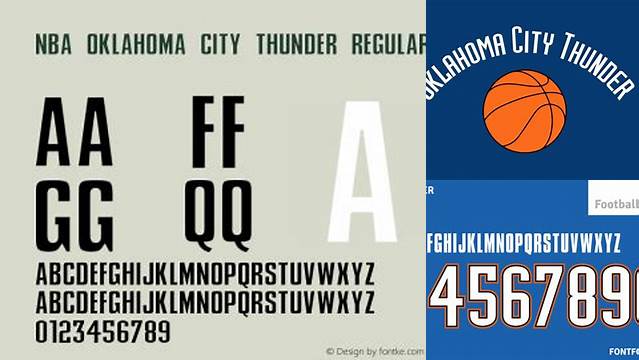
Hey Thunder fans! Are you looking to capture the electric energy of the Oklahoma City Thunder in your designs? Whether you’re creating fan art, social media graphics, or even personal projects, the right font can make all the difference. In this guide, we’ll dive deep into the world of the Oklahoma City Thunder font, exploring where to find it, how to use it, and even some awesome alternatives. So, buckle up and let’s get started!
Oklahoma City Thunder Font: An Overview
The Oklahoma City Thunder's visual identity is more than just their logo; it's also about the typography they use. The font helps convey the team's spirit, energy, and professionalism. It's crucial for branding consistency, making sure that everything from jerseys to promotional materials has a unified look and feel. Understanding the importance of this font is the first step in effectively using it for your projects. We'll discuss why choosing the right font matters and how it contributes to the overall brand image of the Thunder.
Understanding the Oklahoma City Thunder Brand Identity
Before we jump into downloading fonts, let's chat about the Oklahoma City Thunder's brand identity. Understanding this will help you appreciate why their font choices are so important. The Thunder's brand is all about power, dynamism, and a modern aesthetic. Their logo, colors, and typography work together to communicate this. Think about the vibrant blues and oranges – they’re not just random colors; they evoke a sense of energy and excitement. The font plays a crucial role in this, as it needs to be both readable and reflective of the team's overall vibe. By understanding these elements, you can better appreciate the nuances of the Thunder’s font and how it fits into their larger branding strategy. It's like understanding the story behind your favorite superhero – it makes the logo and the font even cooler!
Official Oklahoma City Thunder Font: What Is It?
So, what exactly is the official font used by the Oklahoma City Thunder? This is a common question among fans and designers alike. The Thunder, like many professional sports teams, often use a custom or modified font to create a unique visual identity. This means that you might not find an exact match readily available for free download. However, understanding the characteristics of the font – its weight, style, and overall feel – will help you find suitable alternatives. The official font usually has a bold, strong appearance, conveying the team's strength and determination. While specific details might be proprietary, we can analyze its features and look for similar fonts that capture the same spirit. Think of it as being a font detective – we're looking for clues to help us find the best options!
Where to Find Free Fonts Similar to the Thunder Font
Okay, let's get to the good stuff – finding free fonts that look like the Oklahoma City Thunder's font! While the exact font might be elusive, there are tons of fantastic alternatives out there. Websites like DaFont, Google Fonts, and Font Squirrel offer a wide variety of free fonts that you can download and use. The key is to look for fonts that have a similar bold and modern style. Think about fonts with a strong sans-serif typeface, as these often match the Thunder’s aesthetic. Don't be afraid to experiment and try out different options until you find one that you love. It's like going on a font treasure hunt – you never know what gems you might discover!
Identifying Key Characteristics of the Thunder Font
To find the perfect match, we need to identify the key characteristics of the Oklahoma City Thunder font. What makes it stand out? Usually, it's a bold, sans-serif font with clean lines and a powerful presence. Think about the spacing between letters, the thickness of the strokes, and the overall shape of the characters. These little details can make a big difference in how a font looks and feels. Is it geometric and modern? Or does it have a more rounded, friendly appearance? By breaking down the font into these elements, you can more effectively search for similar options. It's like learning the ingredients of your favorite dish – once you know what's in it, you can try to recreate it yourself!
Best Sans-Serif Fonts for a Thunder-Like Look
Sans-serif fonts are your best bet for capturing that Oklahoma City Thunder vibe. These fonts are known for their clean, modern lines and lack of serifs (the little decorative strokes at the ends of letters). Some fantastic options to consider include Bebas Neue, Montserrat, and Oswald. Bebas Neue is a popular choice for its tall, condensed letters and strong presence. Montserrat offers a more versatile option, with various weights and styles to choose from. Oswald is another excellent choice, known for its slightly rounded forms and readability. When selecting a font, think about how it will look in different sizes and contexts. A font that looks great in a headline might not be as effective in body text. It's all about finding the right balance. Remember, these suggestions are just the starting point of your own Thunder font adventure!
Free Alternatives to the Official Thunder Font
Let's dive into some specific free alternatives that you can use in your projects. Remember, the goal is to capture the essence of the Thunder font, even if we can't get an exact match. Consider fonts like Roboto, Open Sans, and Lato. Roboto is a hugely popular font from Google Fonts, known for its clean and modern appearance. Open Sans is another great option, prized for its readability and versatility. Lato offers a slightly warmer and friendlier feel, while still maintaining a professional look. Each of these fonts has its own unique character, so play around with them and see which one resonates with you the most. Try them out in different sizes, colors, and contexts to see how they perform. It's like trying on different jerseys to see which one fits just right!
Using Font Identification Tools to Find Similar Fonts
Feeling like a font detective but need some help with the clues? Font identification tools are your secret weapon! These tools allow you to upload an image of a font and then identify fonts that look similar. Websites like WhatTheFont! and Font Matcherator are excellent resources. Simply upload a screenshot or image containing the Oklahoma City Thunder font, and the tool will analyze it and suggest potential matches. These tools aren't always perfect, but they can be a huge time-saver in your font search. Think of them as your font-finding sidekicks! They can help you narrow down your options and discover fonts you might not have found otherwise. Give them a try – you might be surprised at what you discover.
Conclusion: Mastering the Oklahoma City Thunder Font for Your Projects
So, there you have it – a comprehensive guide to finding and using the Oklahoma City Thunder font (or similar alternatives) in your projects. Remember, the right font can make all the difference in capturing the spirit and energy of the team. Explore different options, experiment with font pairings, and always consider readability. By understanding the principles of typography and font licensing, you can create stunning designs that showcase your Thunder pride. Whether you're designing fan art, social media graphics, or branding materials, the power of typography is in your hands. Go out there and create something amazing, Thunder Nation! And remember, a great font is like a slam dunk – it's a game-changer!